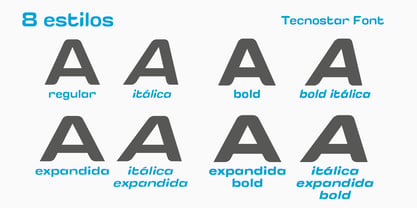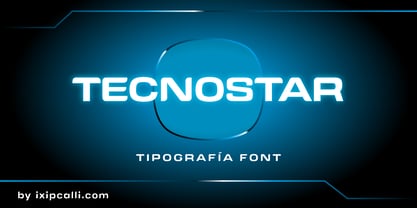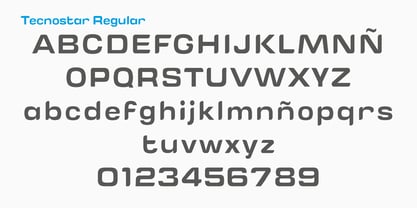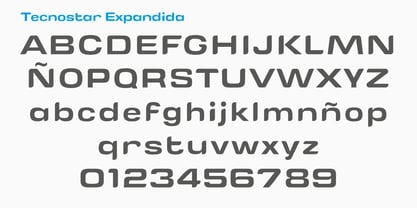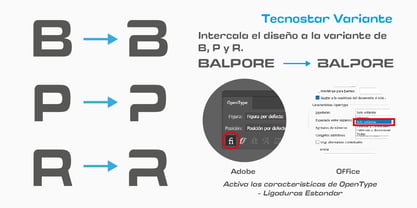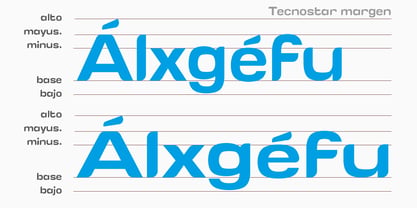
Tecnostar
by Ixipcalli
The Tecnostar Font Family was designed by Francisco Arellano and published by Ixipcalli. Tecnostar contains 8 styles and family package options. More about this family
Tecnostar is designed to stand out in headlines, logos, and high-impact visuals, particularly in projects related to gaming, technology, electronics, or modern branding. Its visual personality combines technical precision with an experimental flair, creating a sense of movement and progress toward the future. Its design is ideal for tech branding projects, posters, covers, and digital interfaces seeking a cutting-edge identity. Its futuristic, geometric style and segmented cuts evoke digital interfaces and sci-fi aesthetics. It features two weights (regular and extended), as well as italic and bold styles for each weight.
This typeface was designed for a smart robot project, so it includes three modified letters "B, P, and R" that can be used to evoke the brand name.
Designers: Francisco Arellano
Foundry: Ixipcalli